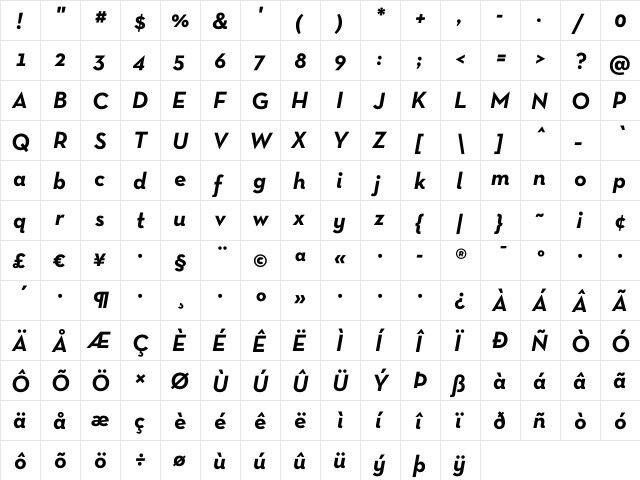
Neutra Text TF Bold Italic
| Designer | Christian Schwartz |
Design Context for Neutra Text TF Typeface
Neutra Text TF is a composed and adaptable typeface that performs quietly and consistently across a wide range of design contexts. Its italic angle brings a sense of urgency and motion to the letterforms. The heavy weight commands attention and anchors typographic hierarchies.
Pro Tip: Use Neutra Text TF for emphasis, pull quotes, and subheadings where its slanted energy can add rhythm to the layout.